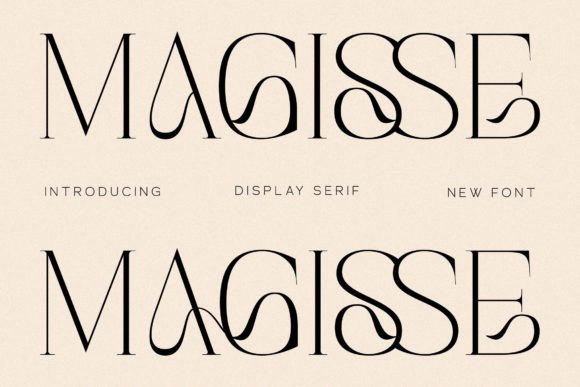
Introducing Magisse Font, the epitome of sophistication and timeless elegance. Created by the renowned Storytype Studio, this serif typeface boasts a unique style and a modern allure that is simply irresistible. Whether you're looking to craft a captivating logo, design a striking book or movie title, establish your fashion brand, or even enhance your magazine, clothes, lettering, and quotes, Magisse Typeface is the perfect choice for your creative endeavors.
With its impeccable design, Magisse Font exudes a sense of luxury and refinement. Its sleek and stylish curves effortlessly capture the attention of your audience, leaving a lasting impression that is impossible to ignore. Let your brand's personality shine through with this versatile typeface that adapts seamlessly to any context, making it the ultimate tool for expressing your creativity.
Unleash your imagination and let Magisse Font elevate your projects to new heights. Its modern and classic elements blend harmoniously, creating a captivating visual experience that will leave your viewers in awe. Crafted with meticulous attention to detail, every curve and line of this typeface exudes professionalism and sophistication, ensuring that your designs will stand out from the crowd.
But what truly sets Magisse Font apart is its ability to evoke emotions and convey your message with utmost clarity. The enchanting strokes of each letter breathe life into your words, adding depth and meaning to your content. Whether you're aiming to inspire, captivate, or persuade, Magisse Font will effortlessly communicate your intentions, forging a deep connection with your audience.
When it comes to online signatures, Magisse Font reigns supreme. Its impeccable legibility ensures that your signature will be easily recognizable and memorable, leaving a lasting impression on anyone who encounters it. Make a statement with your digital presence using the best font for online signatures, and watch as your credibility and professionalism soar.
In a world saturated with mundane typography, Magisse Font stands as a beacon of creativity and innovation. Its uniqueness sets it apart from the rest, making it the go-to choice for designers, entrepreneurs, and creatives alike. Embrace the power of Magisse Font and unlock a world of possibilities for your projects.